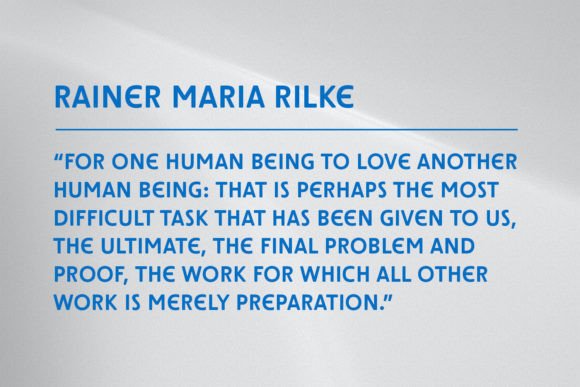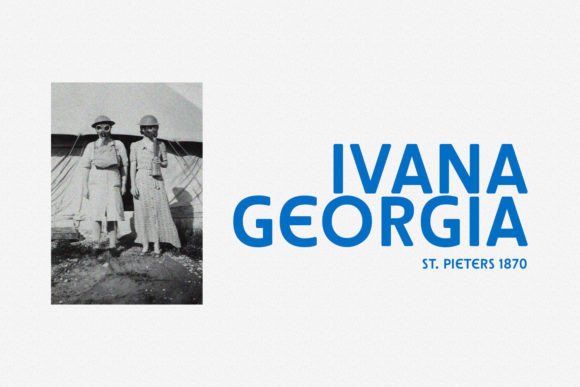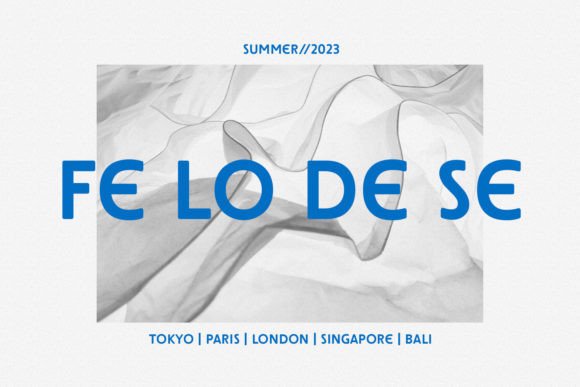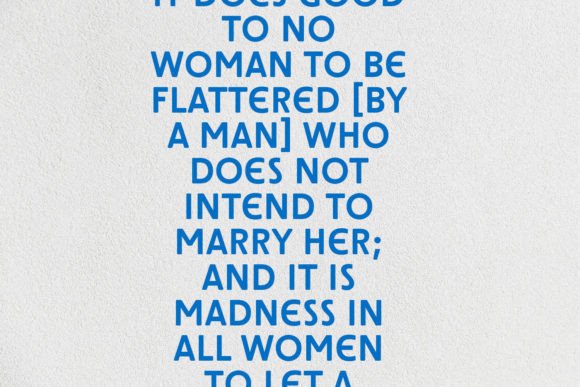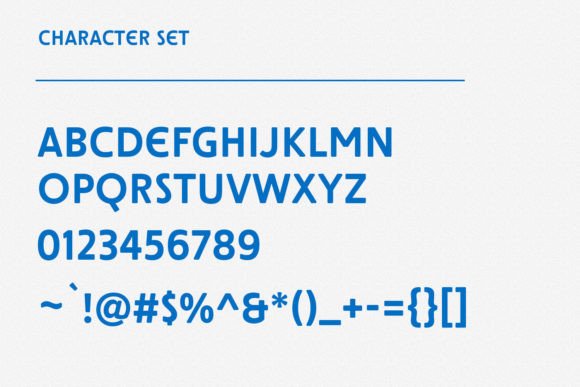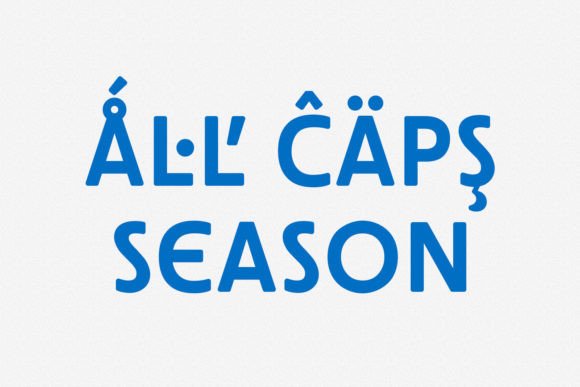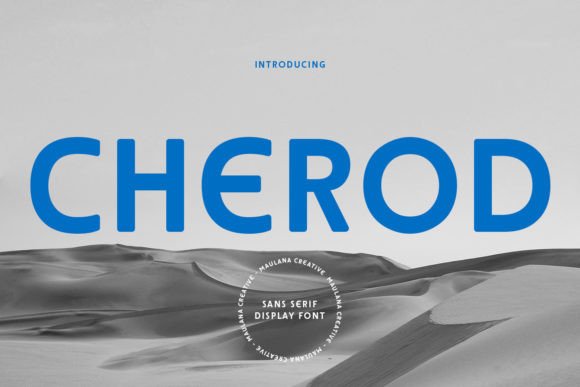
Cherod Font: A Timeless and Elegant Sans Serif for Sophisticated Designs
In the world of typography, fonts play a crucial role in conveying the tone and personality of a brand or design. Among the numerous fonts available, Cherod stands out as a timeless and elegant all-caps sans serif font that exudes sophistication and clarity. Its clean and minimalist characters are designed with even stroke widths, creating a sense of balance and harmony that makes it perfect for any project requiring a classic and refined style.
Design Characteristics of Cherod Font
Cherod’s design is characterized by its straight and upright letters, which give it a formal and professional appearance. The font’s clean and minimalist aesthetic is achieved through its even stroke widths, ensuring that each character is balanced and harmonious. This balance is crucial in creating a sense of stability and reliability, making Cherod an excellent choice for projects that require a strong and dependable visual identity.
One of the most notable features of Cherod is its all-caps design, which makes it ideal for creating strong headlines, logos, and branding. The font’s uppercase letters are carefully crafted to command attention while remaining understated and timeless. This versatility makes Cherod a valuable asset for designers and crafters looking to create a lasting impression.
Uses of Cherod Font
Cherod’s classic and refined style makes it suitable for a wide range of applications, including:
- Headlines and Titles: Cherod’s bold and elegant design makes it perfect for creating eye-catching headlines and titles that demand attention.
- Logos and Branding: The font’s timeless and sophisticated aesthetic makes it an excellent choice for logos and branding, helping to establish a strong and dependable visual identity.
- Advertising and Marketing: Cherod’s clarity and legibility make it ideal for use in advertising and marketing materials, ensuring that your message is conveyed clearly and effectively.
- Packaging and Labeling: The font’s clean and minimalist design makes it suitable for use in packaging and labeling, adding a touch of elegance and sophistication to any product.
Benefits of Using Cherod Font
There are several benefits to using Cherod font in your designs:
- Timeless Appeal: Cherod’s classic design ensures that it will remain relevant and stylish for years to come, avoiding the need for frequent font updates.
- Versatility: The font’s all-caps design and elegant aesthetic make it suitable for a wide range of applications, from headlines and titles to logos and branding.
- Legibility: Cherod’s clean and minimalist characters ensure that your message is conveyed clearly and effectively, even at small font sizes.
- Professional Appearance: The font’s formal and professional appearance makes it perfect for projects that require a sophisticated and dependable visual identity.
Tips for Using Cherod Font Effectively
To get the most out of Cherod font, consider the following tips:
- Use it sparingly: Cherod’s bold and elegant design makes it perfect for use in headlines and titles, but use it sparingly to avoid overwhelming your design.
- Pair it with complementary fonts: Combine Cherod with complementary fonts to create a visually appealing and harmonious design.
- Experiment with font sizes: Cherod’s legibility and clarity make it suitable for use at a range of font sizes, from large headlines to smaller body text.
In conclusion, Cherod font is a timeless and elegant sans serif font that exudes sophistication and clarity. Its clean and minimalist characters, even stroke widths, and formal appearance make it perfect for any project requiring a classic and refined style. With its versatility, legibility, and professional appearance, Cherod is a valuable asset for designers and crafters looking to create a lasting impression.